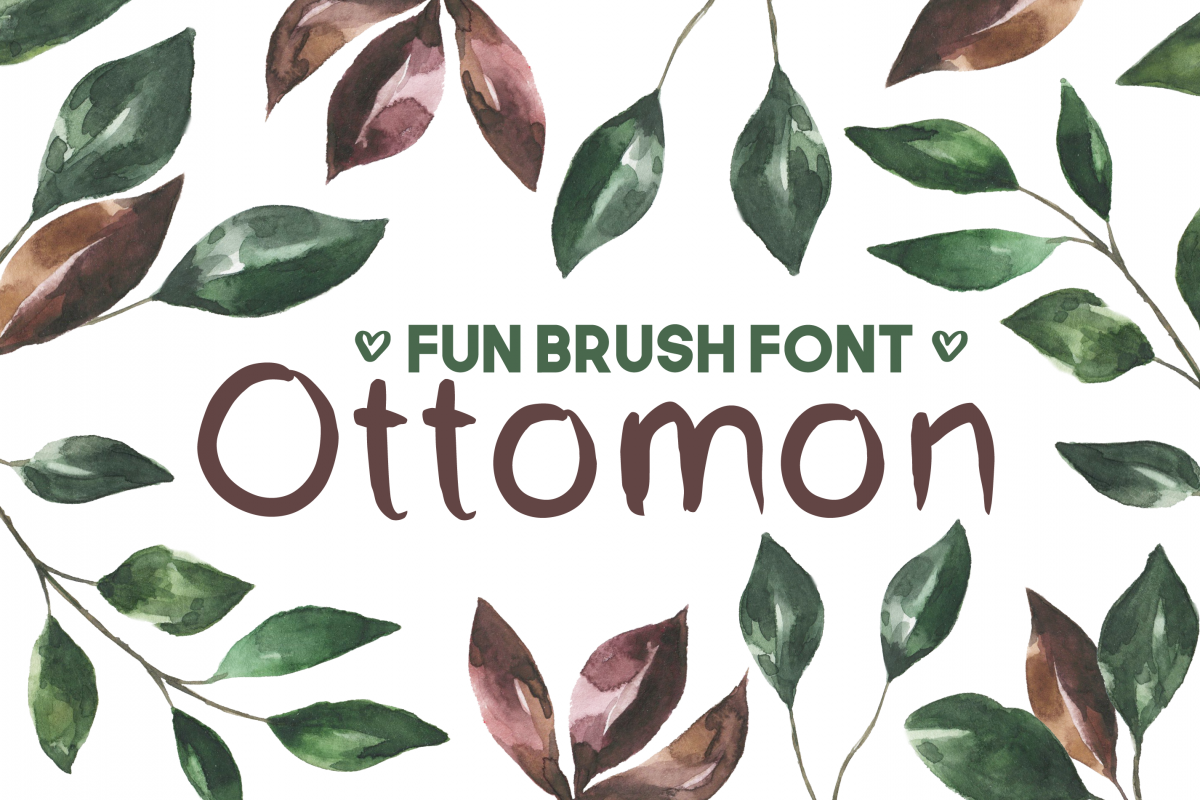
Ottomon Handwritten Brush Font
Ottomon Font is a handwritten brush font. Beautiful on its own - it is perfect for logos, headlines, and advertising. This sans serif font features A-Z, a-z, 0-9, and basic extra characters.